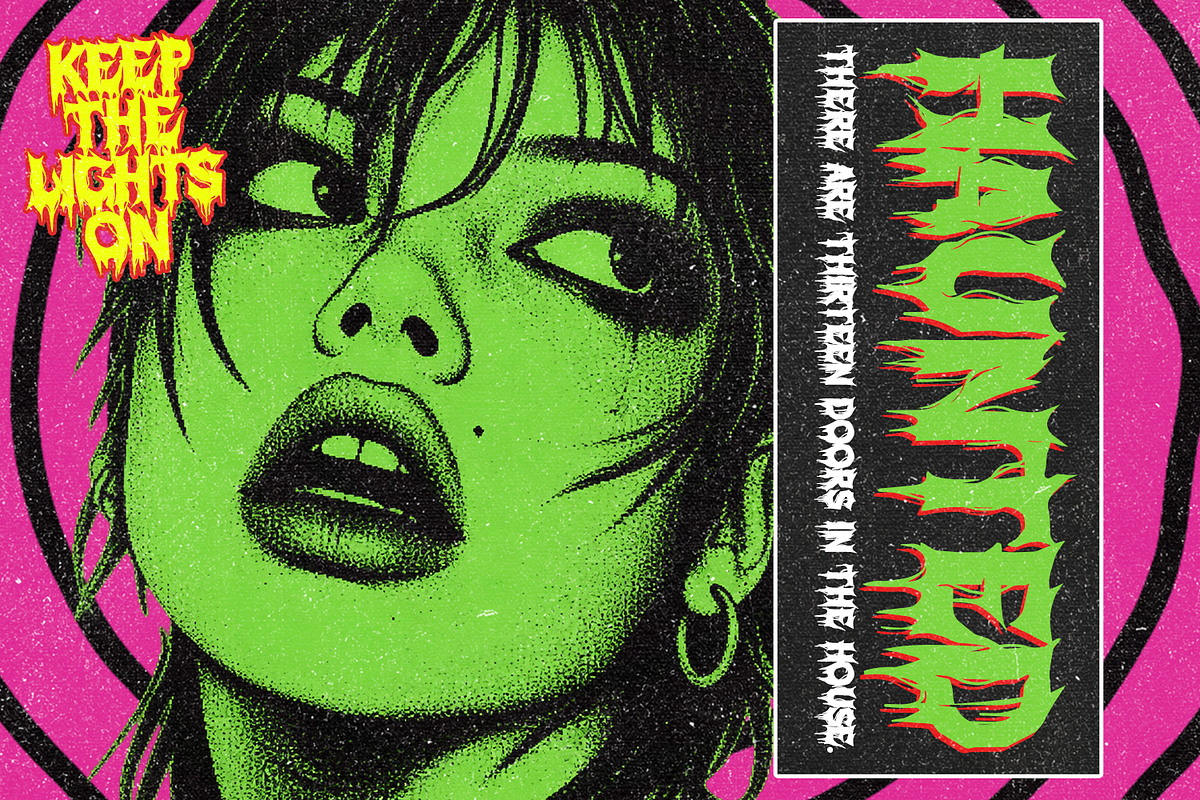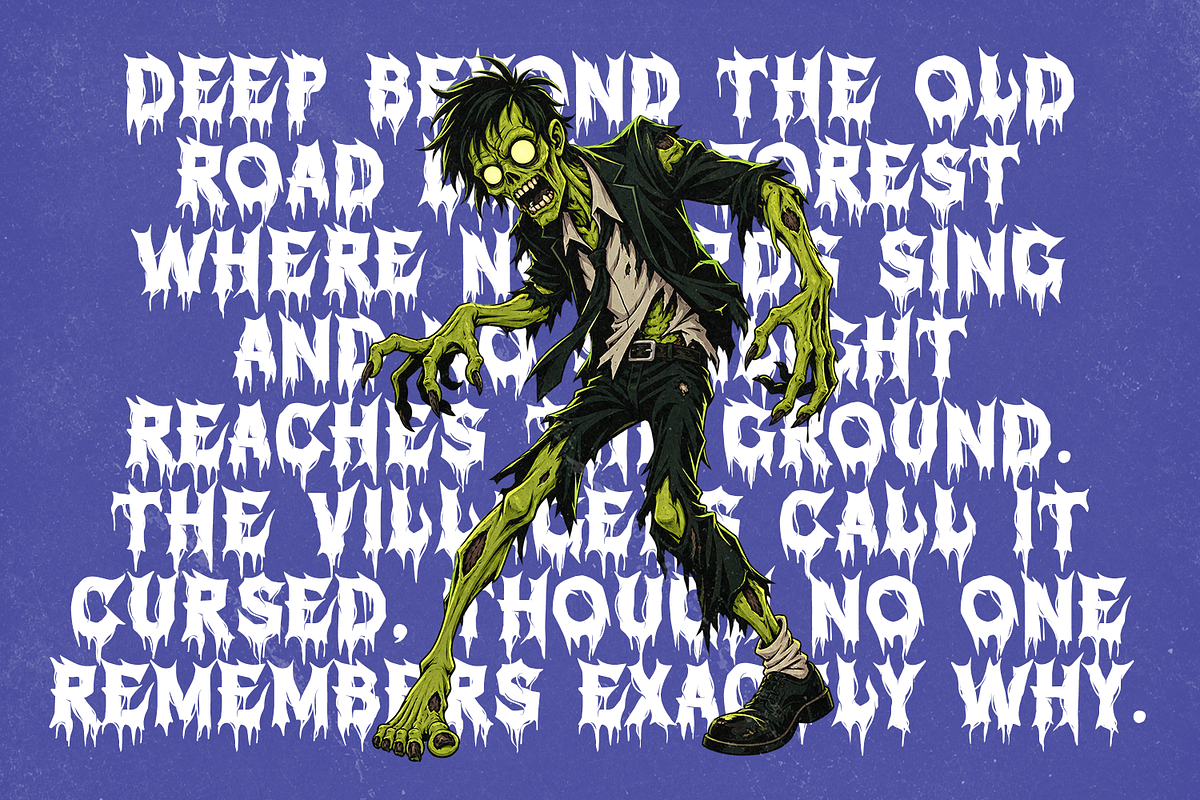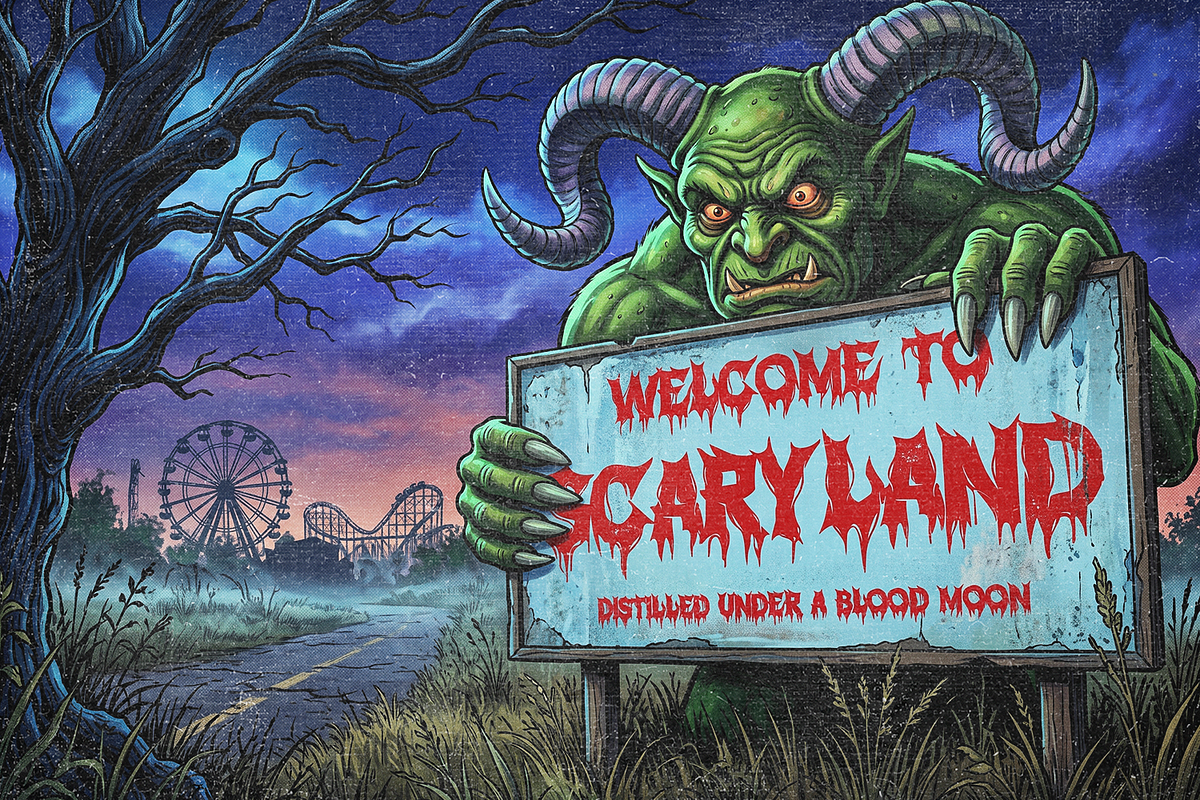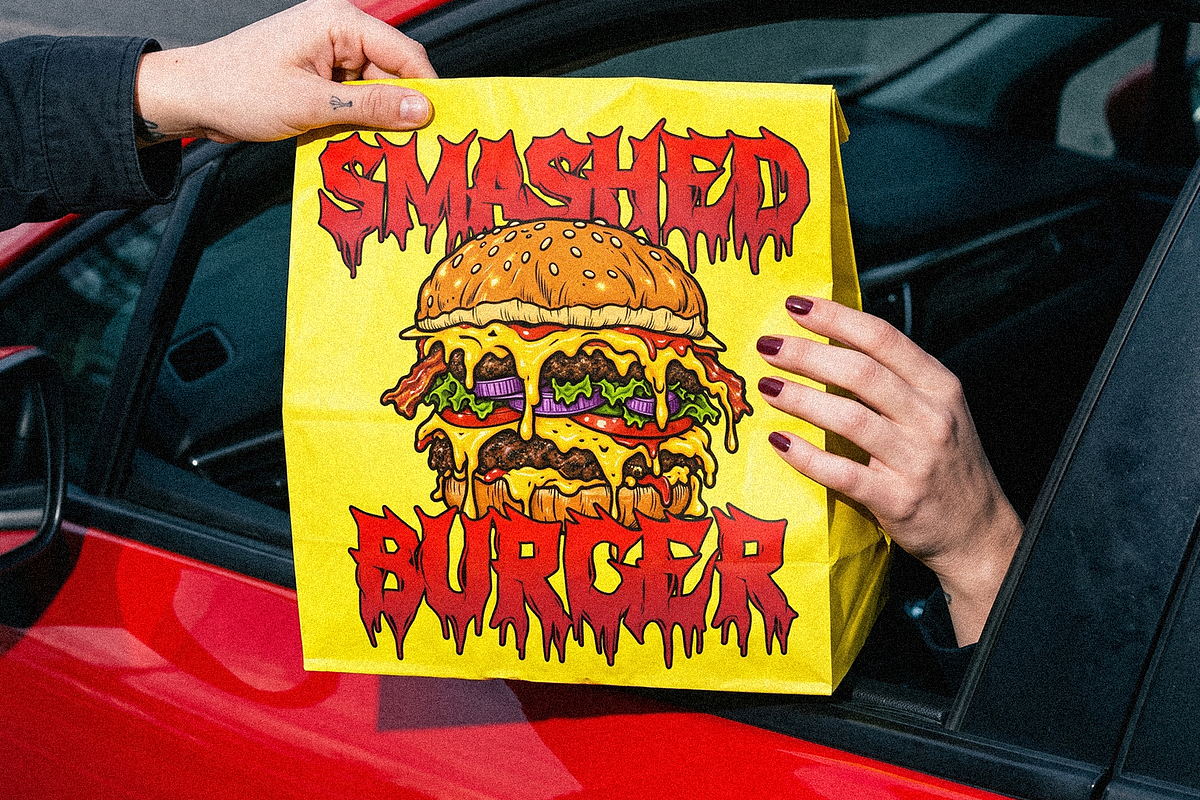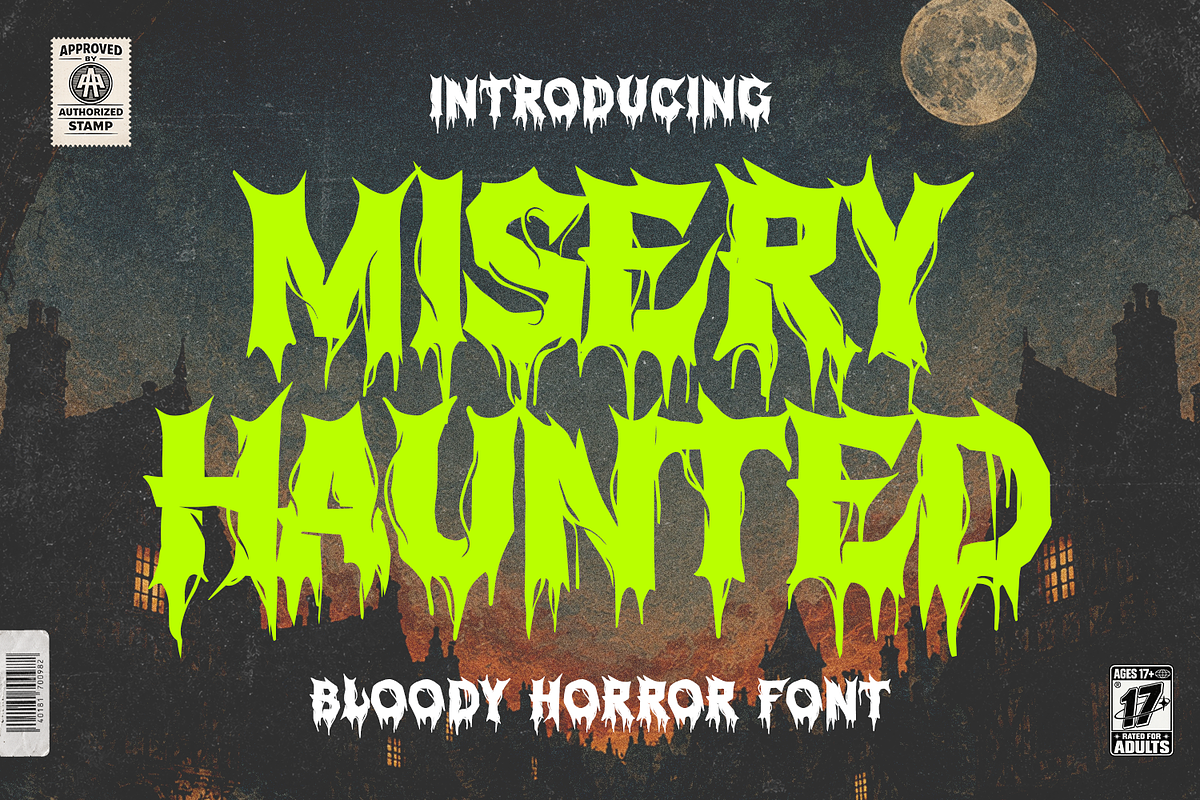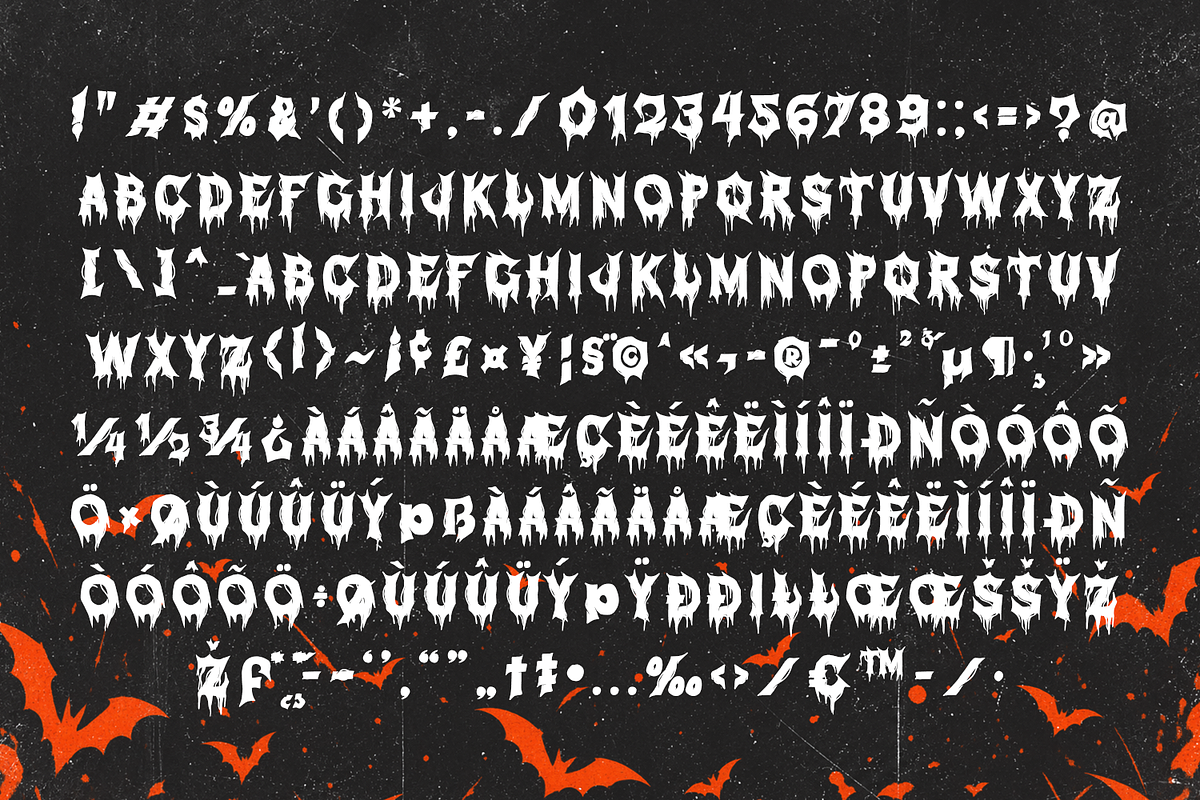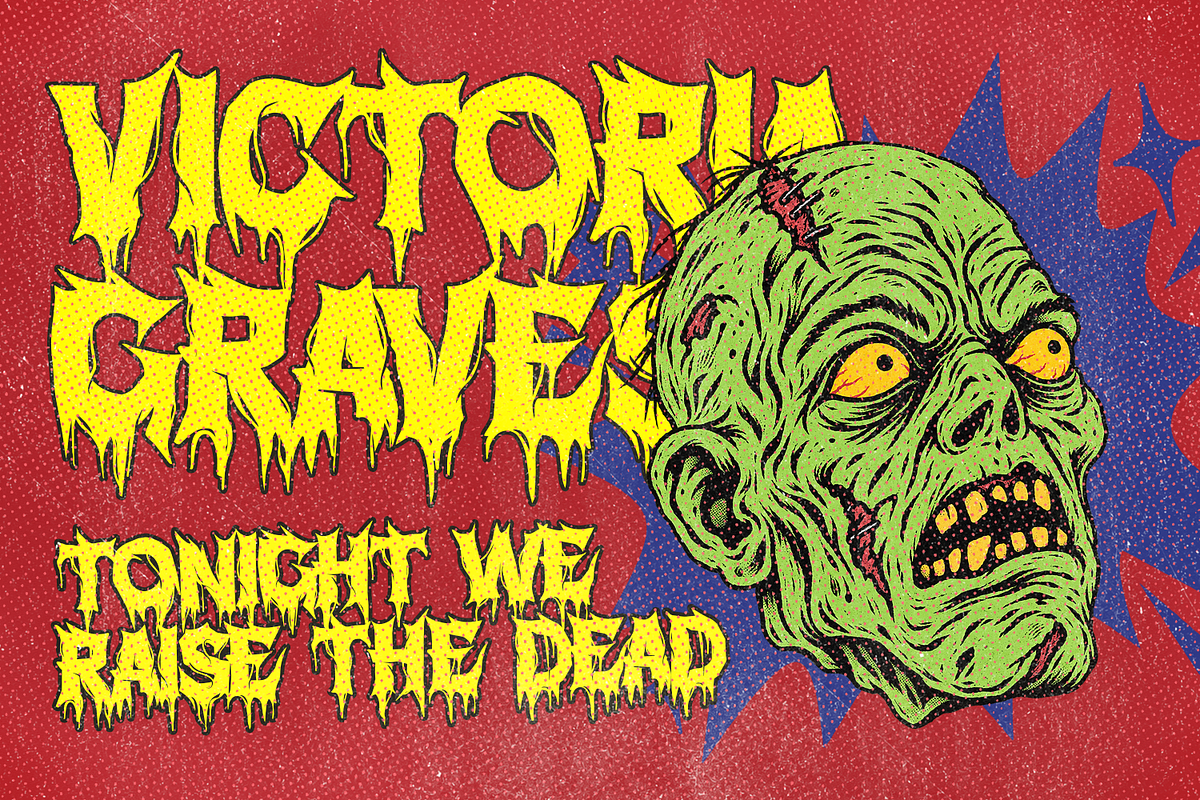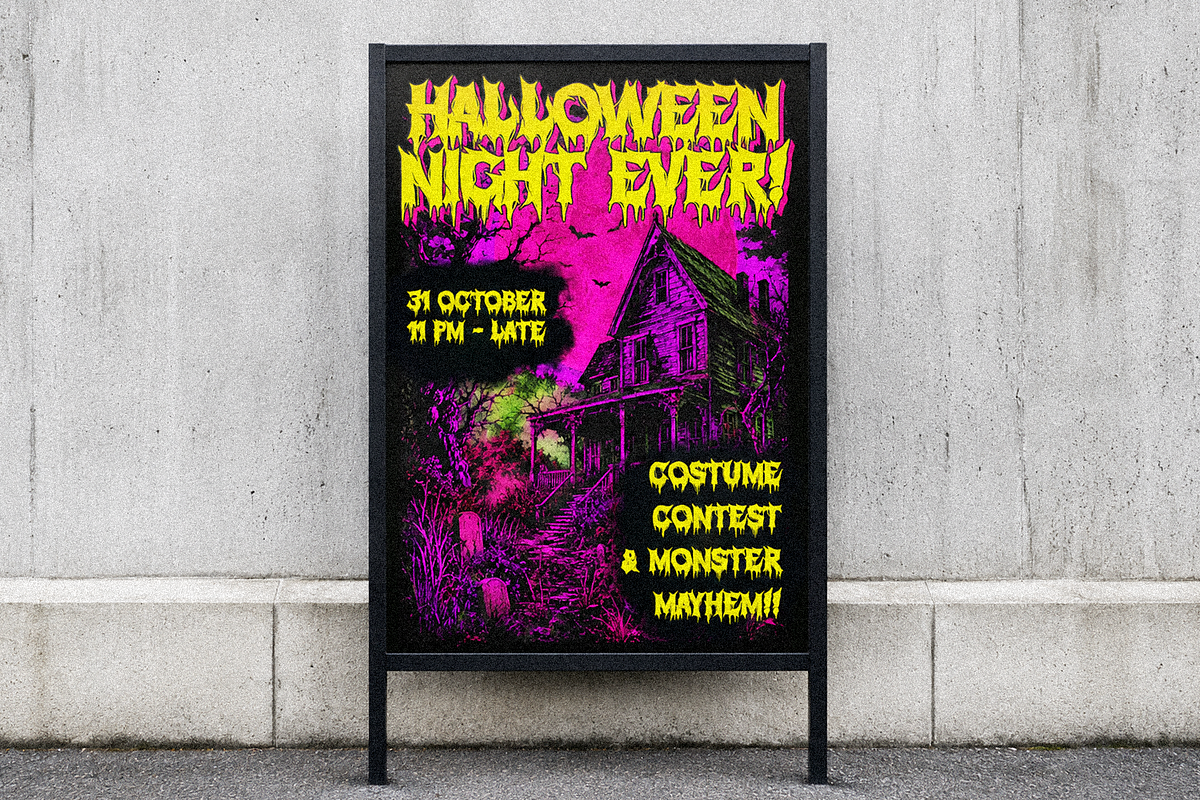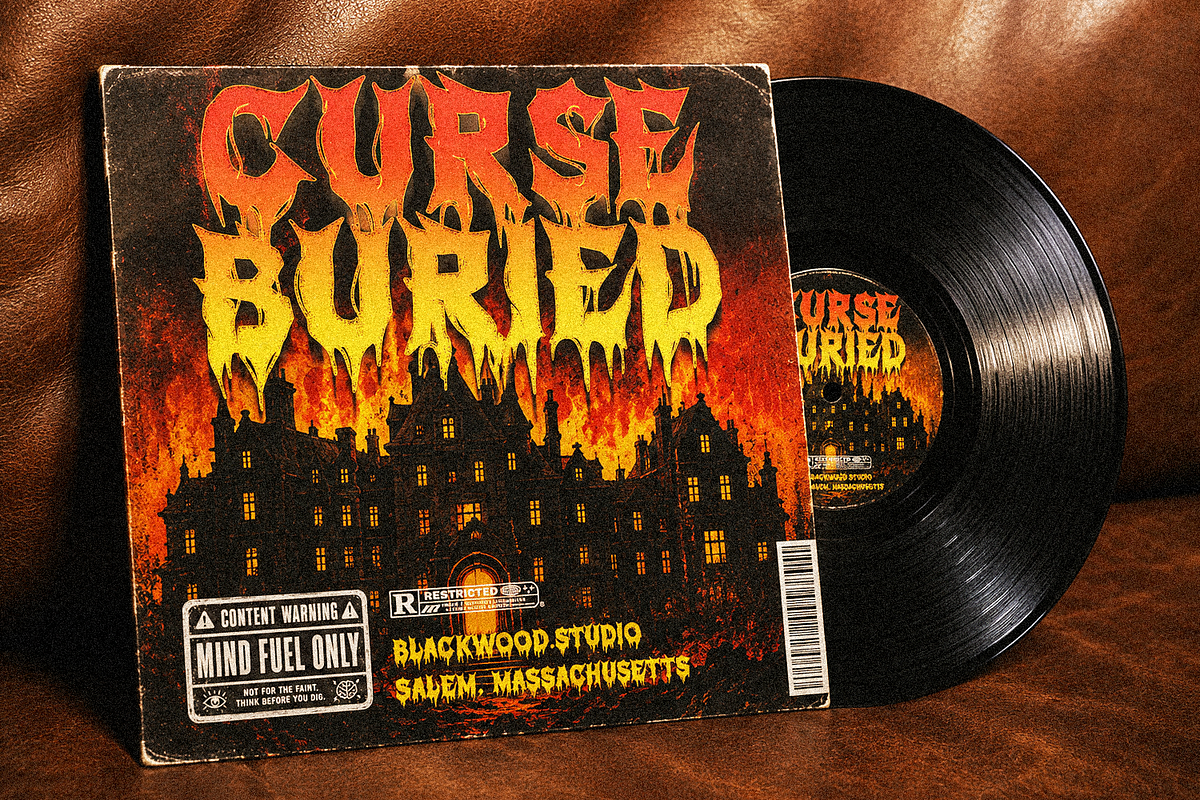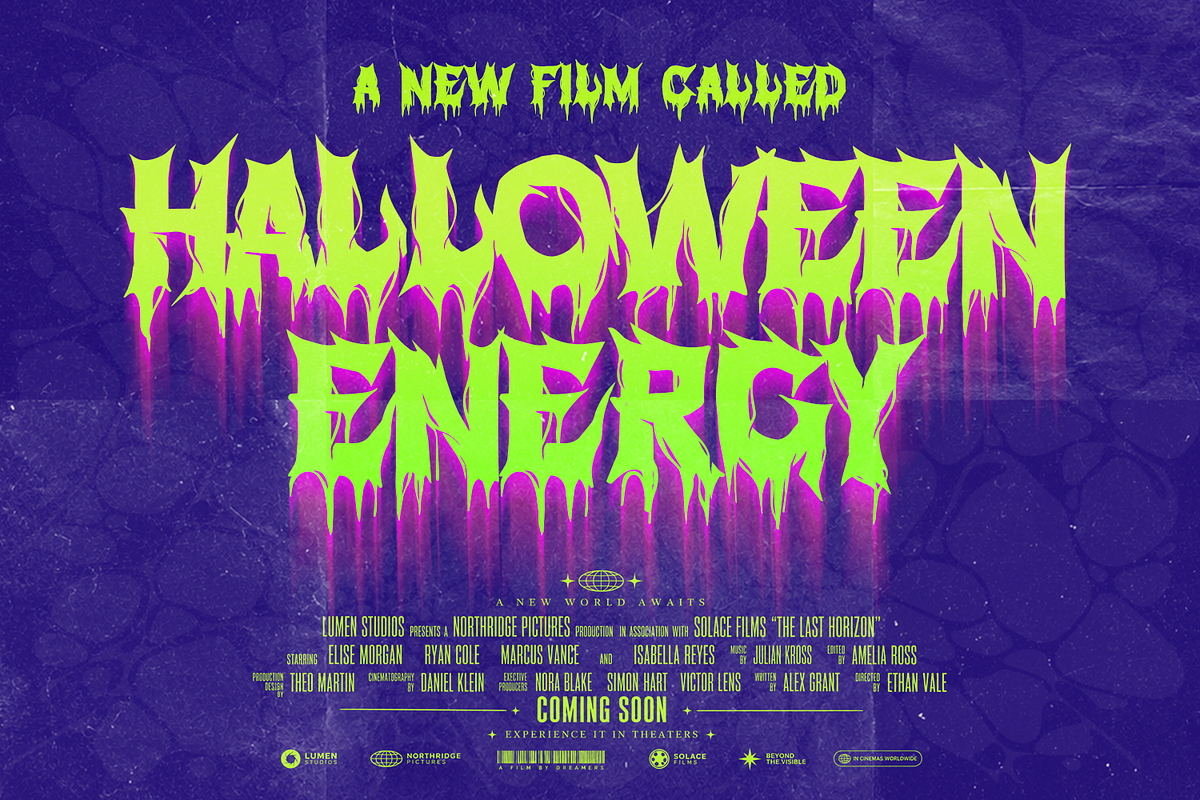
Misery Haunted Dramatic Horror
Misery Haunted is a hauntingly dramatic horror display font designed to bring chilling suspense and eerie elegance to your dark-themed design projects. Featuring sharp, distressed edges, jagged letterforms, and an ominous hand-drawn aesthetic, this typeface captures a raw, mysterious vibe that instantly elevates spooky typography.
Crafted with high attention to detail, Misery Haunted is ideal for design layouts that require a sinister, gothic, and high-impact theatrical touch.
- Complete Character Set: Includes full Uppercase and Lowercase display letterforms.
- Numbers & Punctuation: Complete set of numerals, standard symbols, and punctuation marks.
- Alternate Characters & Swashes: OpenType features for adding extra grunge and spooky flair.
- Multilingual Support: Accented characters supporting various European and Latin-based languages.
Ideal Applications:
- Horror & Thriller Media: Eye-catching titles for movie posters, game covers, book jackets, and trailer graphics.
- Halloween & Theme Events: Standout typography for party flyers, haunted house signage, and festival posters.
- Merchandise: Spooky branding for merch sticker packs.
- Packaging & Branding: Themed packaging for craft beer labels, hot sauces, novelty items, and seasonal goods.
- Social Media & Streaming: Dramatic text overlays for YouTube thumbnails, Twitch overlays, and dark aesthetic posts.